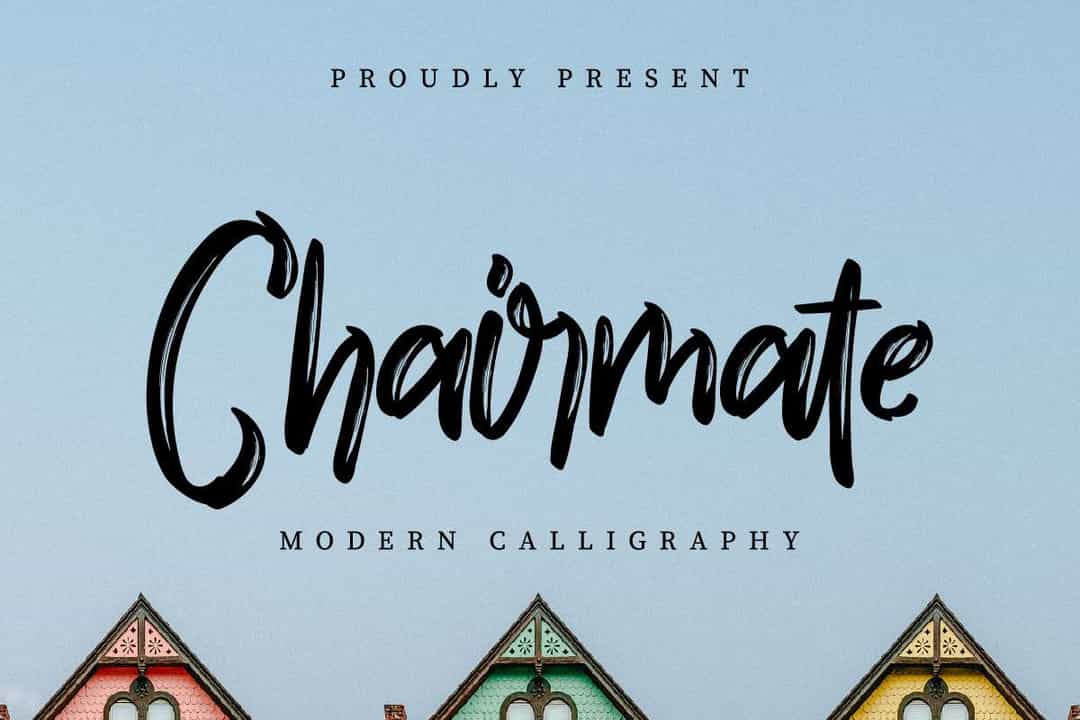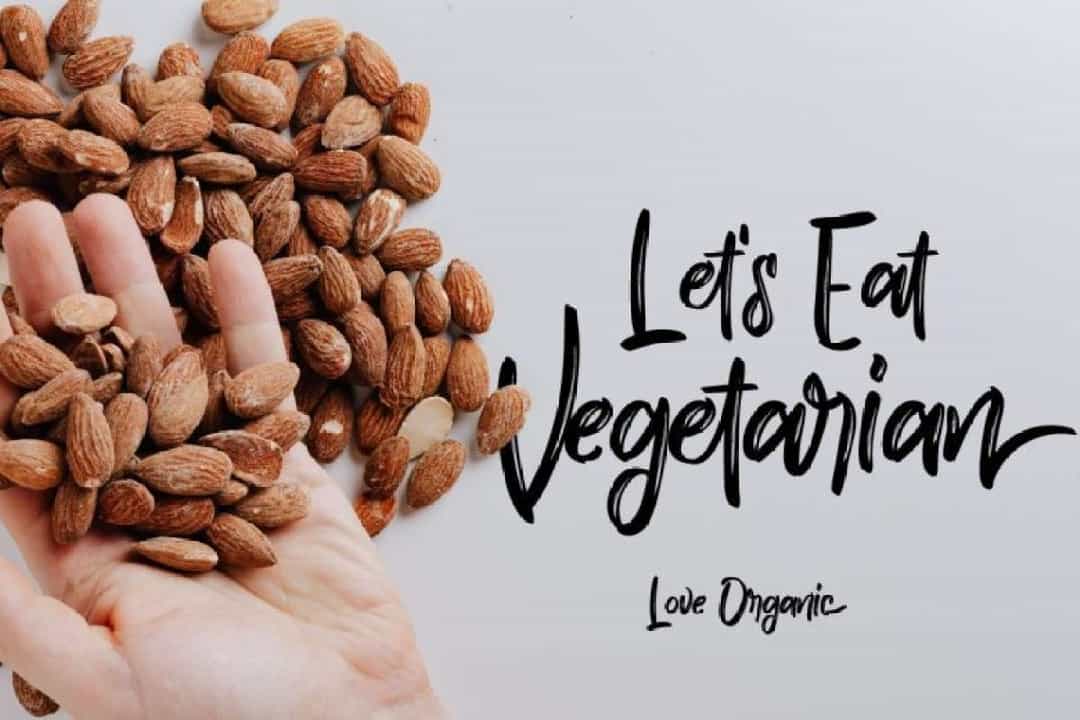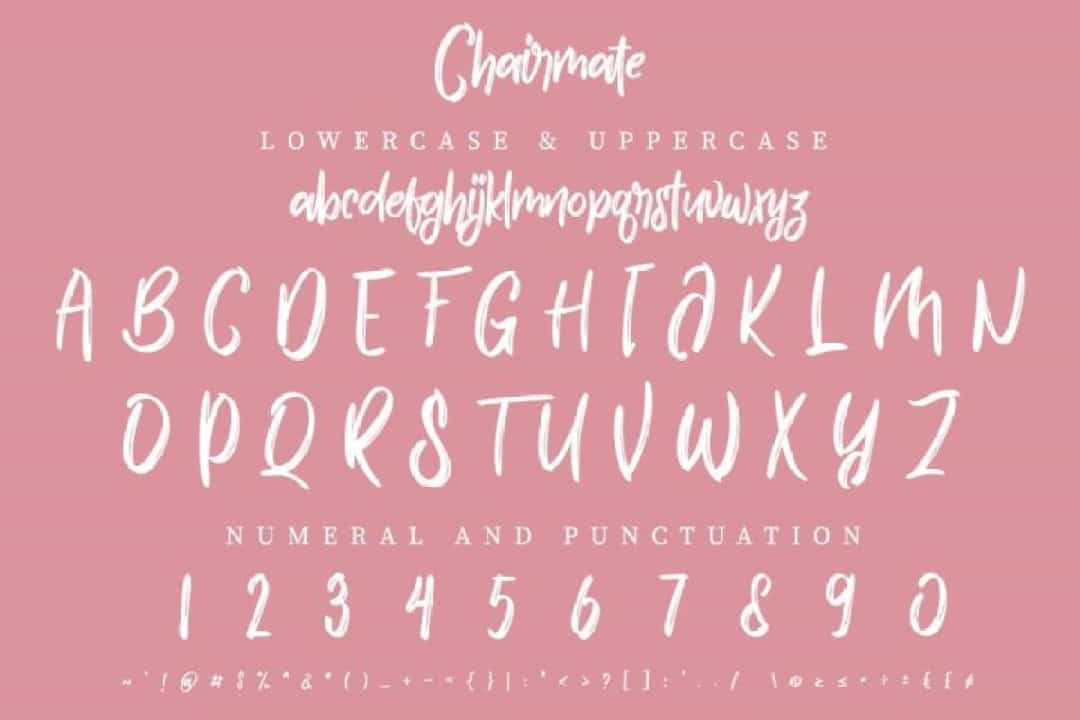
Discover Chairmate Brush Calligraphy Font, part of the Brush Calligraphy Script collection—a versatile and unique font perfect for adding a personal touch to your projects. Download it for free and enjoy crafting designs with style, from invitations to social media posts. This font is available exclusively for personal use, giving you the freedom to create without limits. Unlock your creativity with Chairmate Brush Calligraphy Font today!
Chairmate is an exclusive calligraphy script typeface in brush-style. The font is stunning with a gorgeous characters set, that is well-managed by kerning and spaced well. The design style of this font is elegant, vintage, chic sophisticated and classic calligraphic style. It is not available anywhere other than the font the Chairmate Calligraphy font.